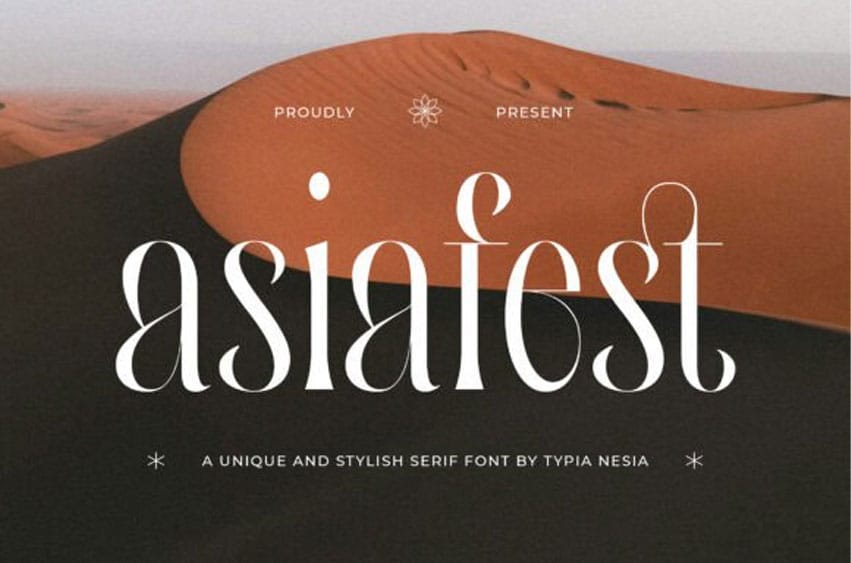
Asiafest Font is a unique and stylish serif font blends classic elegance with a modern flair.
Designed with refined curves and graceful proportions, this display typeface offers an elevated aesthetic perfect for luxurious visual storytelling, such as branding, fashion magazines, high-end packaging, logos, wedding invitations, editorial layouts, social media graphics, skincare product, advertising campaign, and everything that calls for a touch of elegance and class.